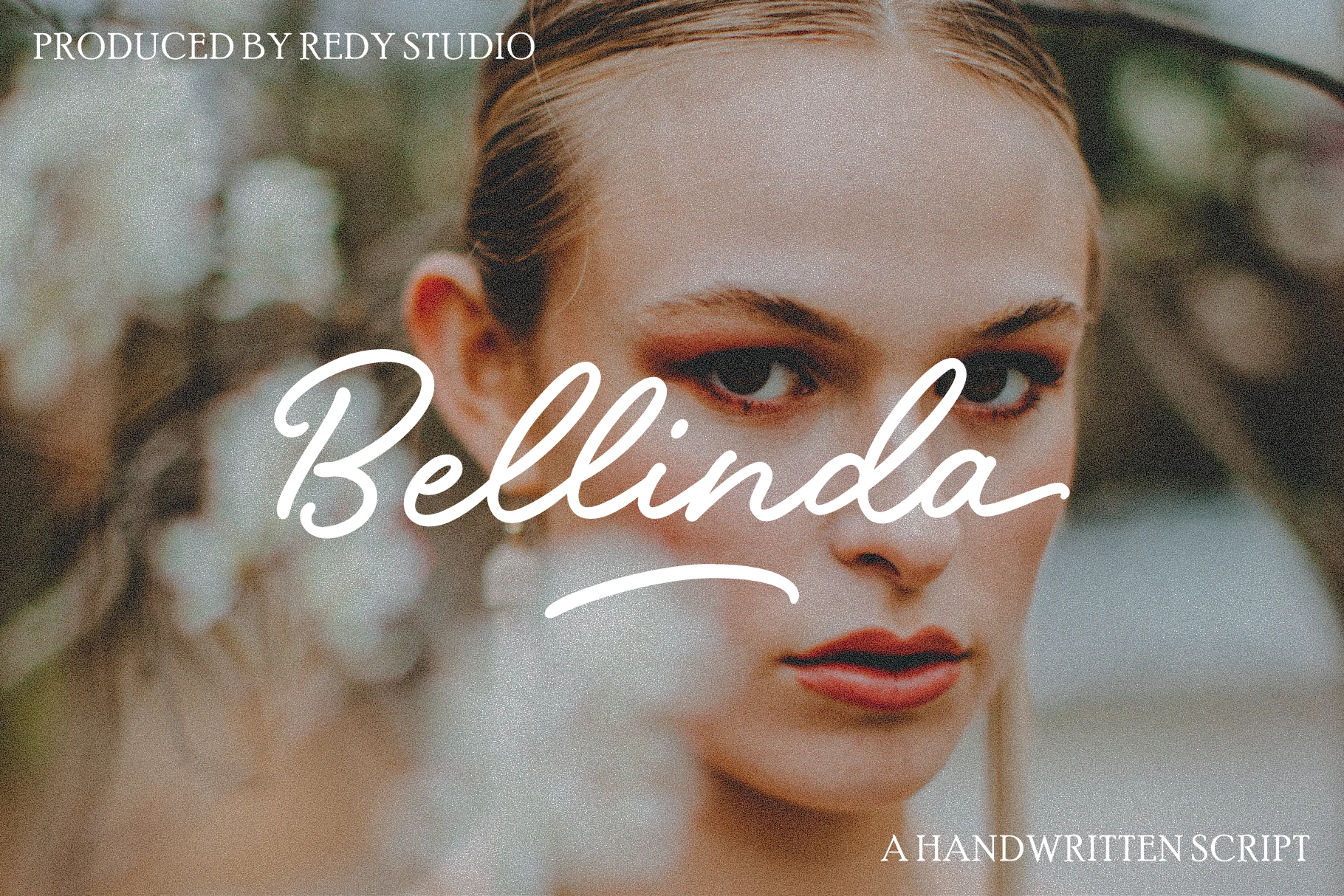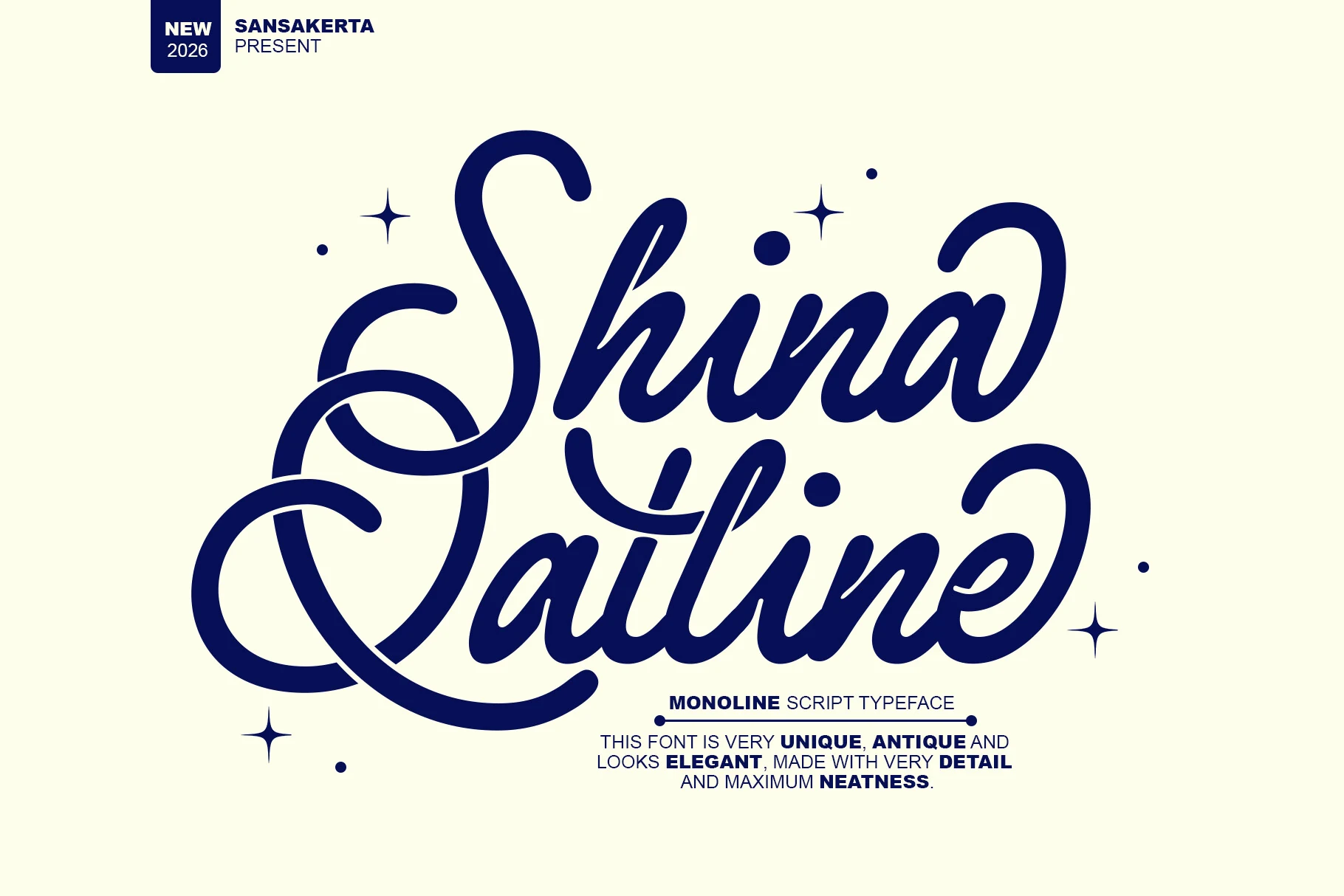
27 Best Script Fonts in 2026 for Elegant Creative Designs
Script Fonts remain a strong choice in 2026 for designs that need personality, movement, and a more handcrafted feel. We selected 27 styles that can help you create elegant invitations, memorable logos, social media graphics, wedding stationery, product labels, and branding projects faster.
Milkshake Font
Milkshake Font has a smooth handwritten script with thick rounded strokes, easy joins, and a relaxed baseline that keeps the wordmark soft without feeling fragile. Its bold weight gives short titles enough presence for wedding stationery, beauty packaging, and social posts while the open counters help the letters stay readable on light, minimal layouts.
Use it when Script Fonts need a refined casual tone rather than thin calligraphic detail. Keep extra letter spacing minimal because the connected rhythm depends on the joins; instead, build contrast with a small serif or clean sans label line and reserve Milkshake for names, headlines, or signature-style accents.
Shina Qatline Font
Shina Qatline Font leans into a polished monoline script style, with long looping capitals, smooth joins, and a clean even stroke that keeps its decorative movement controlled. The generous swashes give it a refined vintage feel, while the tidy lowercase keeps names and short phrases readable enough for logos, boutique packaging, or elegant invitation lines.
Within Script Fonts, this one works best when you let the capitals carry the drama. Use it at display size and give the first and last letters room to breathe, then pair it with a restrained sans or small uppercase serif so the flourishes stay crisp instead of competing with the supporting text.
Barbie Font
Barbie Font uses a graceful script structure with a dramatic oversized capital, slim connecting strokes, and rounded thick downstrokes that give each word a polished signature feel. The letterforms carry enough contrast for refined invitations and logo marks, while the open spacing around the joins keeps short phrases from turning too dense.
For Script Fonts with this much flourish, composition matters more than volume. Keep it to names, quotes, or compact headings, then support it with widely spaced small caps or a quiet serif line so the sweeping entry strokes and long terminal on the final letter remain the main visual point.
Cupcake Handmade Duo Font
Cupcake Handmade Duo Font pairs a tall rounded sans with a loose handwritten script, so the set feels styled from the start rather than mixed as an afterthought. The sans brings a soft vertical rhythm, while the script adds smooth monoline movement and playful loops that sit neatly across wider letterforms.
For Script Fonts that need a sweeter, more layered look, this duo works best when the sans carries the main word and the script acts as the accent. Keep the base text large with generous spacing, then overlay the script for contrast and charm; that structure helps short quotes, invitation titles, and social graphics stay clear and decorative at the same time.
Bellinda – Modern Calligraphy Font
Bellinda – Modern Calligraphy Font has a smooth handwritten rhythm with a tall looping capital, rounded joins, and a long underline swash that gives the wordmark a refined editorial look. Its delicate vintage tone suits beauty labels, fashion visuals, and invitation headers where the lettering needs to feel personal without becoming overly casual.
Use it as one of the more expressive Script Fonts in the layout, not as body text. The PUA encoding is useful for reaching the glyphs and swashes when shaping custom name marks, but the best result comes from giving the entry stroke and underline enough horizontal space against a quiet serif or small uppercase support line.
Antonia Morben Duo Font
Antonia Morben Duo Font combines a tall high-contrast serif with a flowing handwritten companion, giving you an instant headline system with built-in contrast. The serif feels clean and statuesque, while the script adds soft loops, long connectors, and a friendly rhythm that keeps the pairing polished rather than stiff.
For designers exploring Script Fonts without losing structure, this duo is especially useful for layered titles and identity work. Let the serif carry the main word, then bring in the script for emphasis or overlap; that size hierarchy makes covers, posters, and branding feel more dimensional while keeping the message easy to scan.
Honey Font
Use it when Script Fonts need a quiet premium tone for logos, personal branding, beauty projects, or editorial signatures. Its thin strokes need strong contrast and enough scale, so avoid placing it over busy textures and let the spacing stay open around the extended swashes.